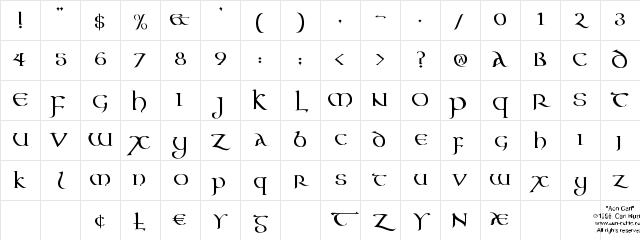
Aon Cari Celtic Regular
Design Context for Aon Cari Celtic
Aon Cari Celtic is a composed and adaptable typeface that performs quietly and consistently across a wide range of design contexts.
Pro Tip: Use Aon Cari Celtic in both headline and body roles to test its range before committing to a single application.